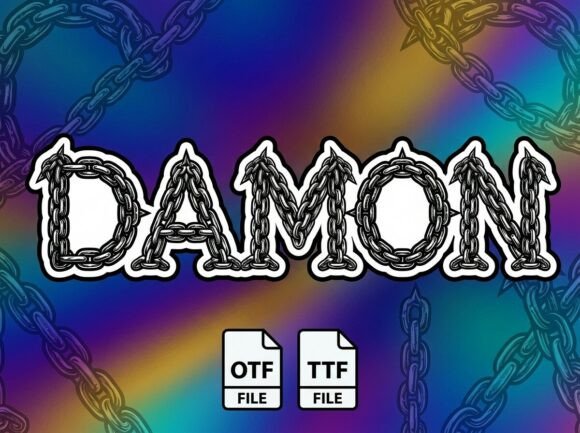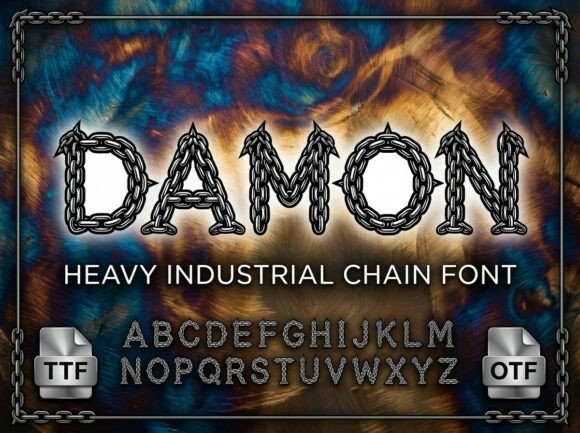
Unleash the Rebellion: Introducing Damon Font
In the world of typography, few fonts can match the raw, industrial energy of Damon, a premium display font designed to make a statement. This bold and fearless typeface is meticulously composed of heavy, interlocking metal links accented with sharp, aggressive spikes, giving it a “heavy-metal” soul that’s hard to ignore. Whether you’re a designer, craftsperson, or simply someone who appreciates the aesthetic of rebellion, Damon is the perfect choice for projects that demand attention and exude an alternative edge.
The Design Behind the Rebellion
Damon’s design is a masterclass in industrial chic. Each letterform is carefully crafted to resemble heavy metal links, evoking the feeling of rugged, unyielding strength. The addition of sharp spikes adds an aggressive touch, imbuing the font with a sense of danger and unpredictability. The overall effect is a high-impact silhouette that’s impossible to ignore. Whether you’re creating rock band merchandise, independent horror comic titles, or high-octane streetwear branding, Damon is the perfect font to unleash your creative rebellion.
Perfect for the Fearless and the Bold
Damon is more than just a font – it’s a statement of intent. It’s for those who refuse to blend in and instead choose to stand out from the crowd. This font is tailor-made for:
- Rock band merchandise: Give your band’s branding a bold, edgy makeover with Damon’s unmistakable style.
- Independent horror comic titles: Add a touch of industrial horror to your comic book titles with Damon’s menacing aesthetic.
- High-octane streetwear branding: Take your streetwear brand to the next level with Damon’s bold, attention-grabbing design.
- Social media headers: Make a statement on social media with Damon’s commanding presence.
Why Choose Damon?
With so many fonts available, why choose Damon? Here are just a few reasons why this premium display font stands out from the rest:
- Unique design: Damon’s industrial aesthetic is unlike anything else on the market.
- High-impact silhouette: This font is designed to grab attention and make a lasting impression.
- Versatility: Damon can be used for a wide range of projects, from rock band merchandise to high-end branding.
- Premium quality: As a premium font, Damon is crafted with meticulous attention to detail, ensuring a high level of quality and consistency.
Tips for Using Damon Effectively
To get the most out of Damon, here are a few tips to keep in mind:
- Use it boldly: Damon’s design is meant to be seen, so don’t be afraid to use it in bold, eye-catching applications.
- Experiment with colors: Try pairing Damon with bold, bright colors to really make it pop.
- Mix it with other fonts: Combine Damon with other fonts to create a unique visual identity.
Damon is more than just a font – it’s a movement. It’s a call to arms for those who refuse to be ordinary and instead choose to forge their own path. With its raw, industrial energy and high-impact silhouette, Damon is the perfect choice for designers, craftspersons, and anyone looking to make a statement. So why settle for ordinary when you can unleash the rebellion with Damon?